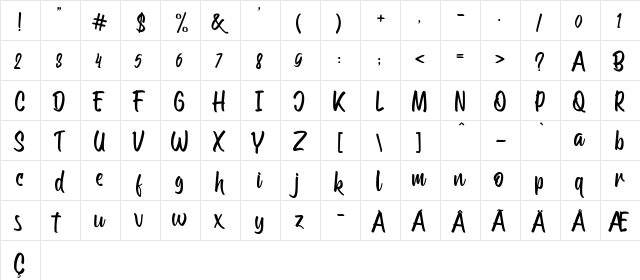
Streetwalker Script (FREE PERSO Regular
Design Context for Streetwalker Script (FREE PERSO Typeface
Streetwalker Script (FREE PERSO brings a calligraphic fluidity to the page — its connecting strokes and expressive curves give it an unmistakably human quality.
Font Pairing: Combine Streetwalker Script (FREE PERSO with a simple geometric sans for maximum contrast — the tension between flowing curves and clean structure is a classic typographic pairing.
Pro Tip: Use Streetwalker Script (FREE PERSO for short runs of text — names, titles, or taglines. Extended body copy in script faces tires the eye quickly.